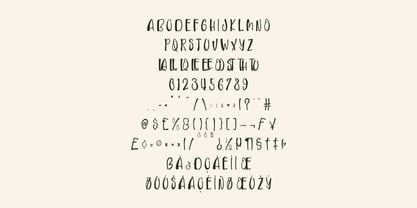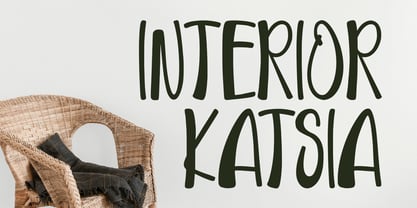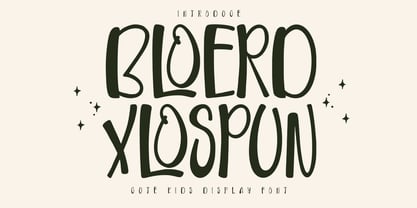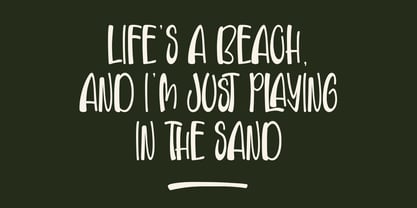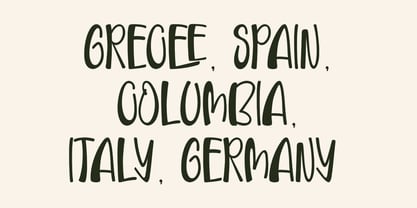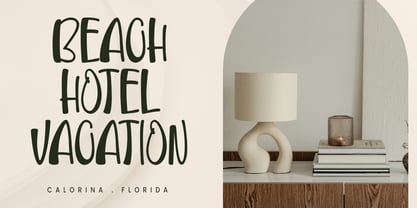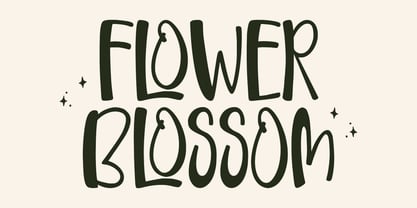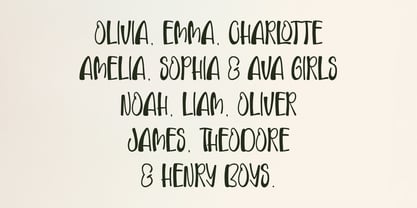
MC Bloerd Xlospun
The MC Bloerd Xlospun Font Family was designed by Gilang Maulana and published by Maulana Creative. MC Bloerd Xlospun contains 1 styles. More about this family
Bloerd Xlospun handmade cute kids display font, fun character with awesome ligatures. To give you an extra creative work. Bloerd Xlospun handmade cute kids display font support multilingual language.